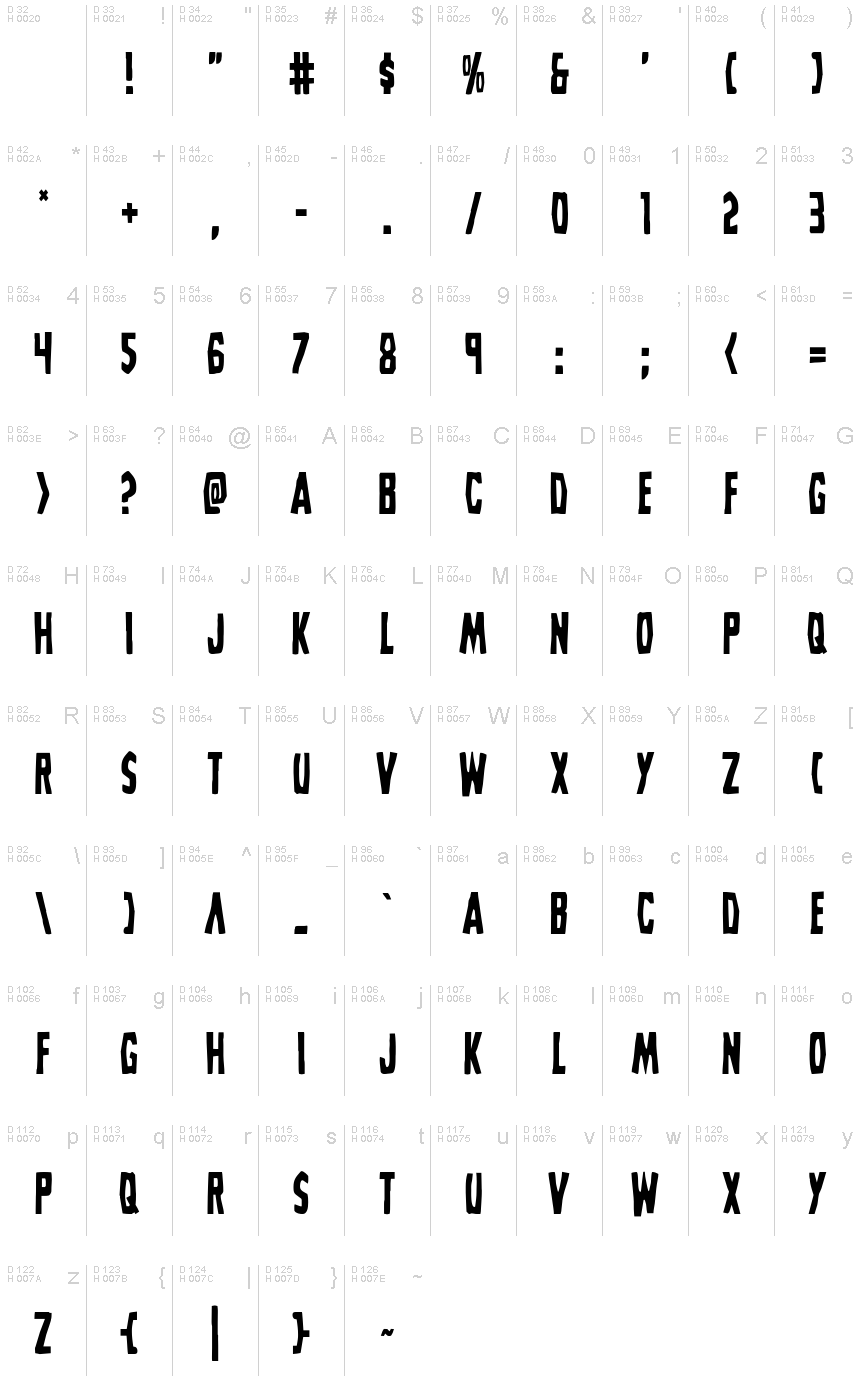
Grim Ghost Condensed, designed in 2024 by Iconian Fonts, is a free condensed cartoon display font with tall, tightly packed capitals. Uneven stroke widths, pinched curves, and blunt edges give the lettering a rowdy, hand-cut silhouette.
Posters are its most convincing setting, especially for horror-comedy screenings or noisy punk shows, because the narrow forms feel crowded and restless. That same crooked build also suits comic-book covers, novelty packaging, and Halloween merchandise, where the letters can function almost like jagged character art.